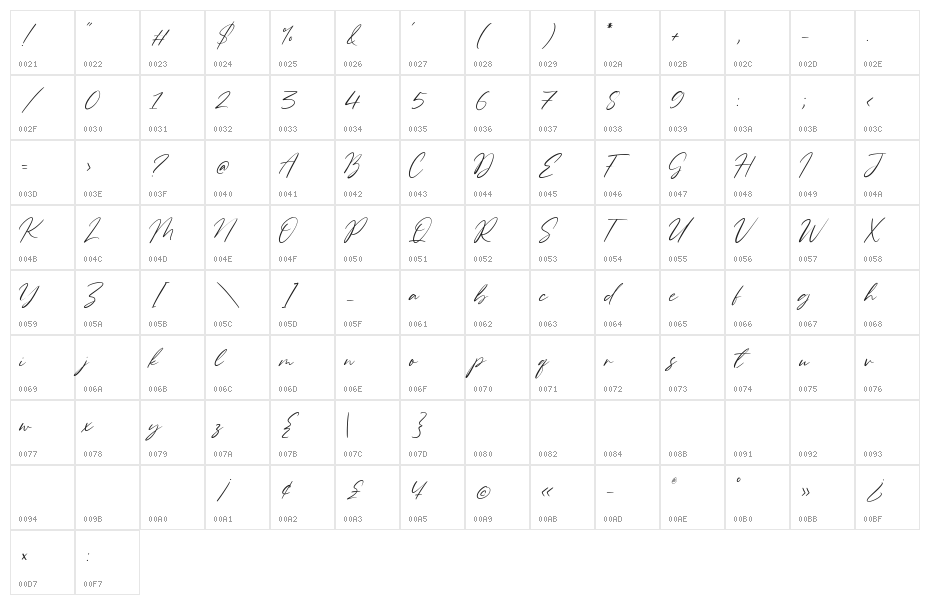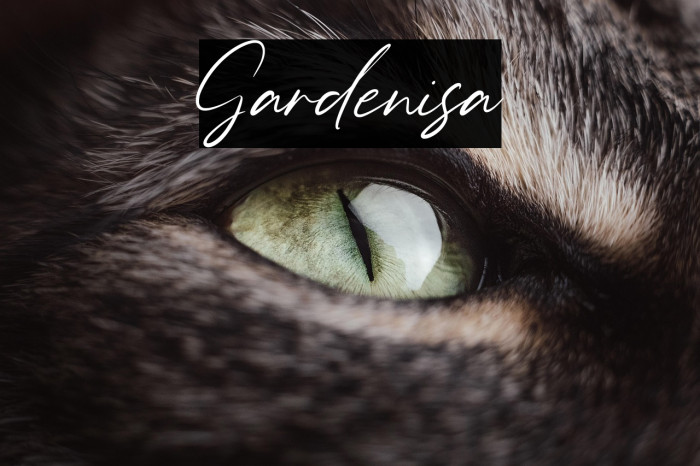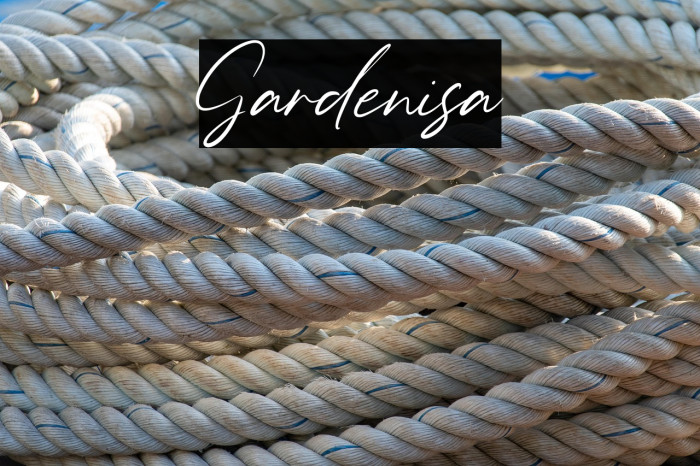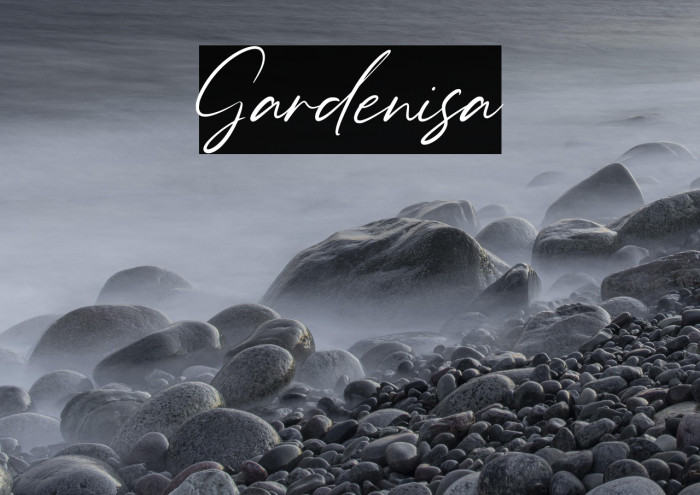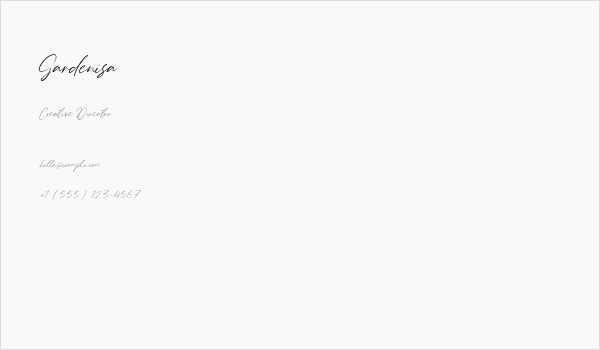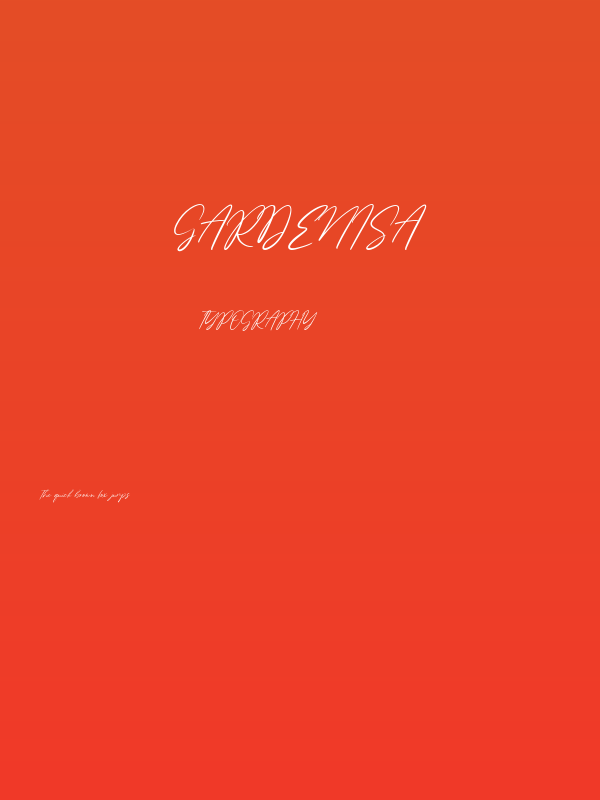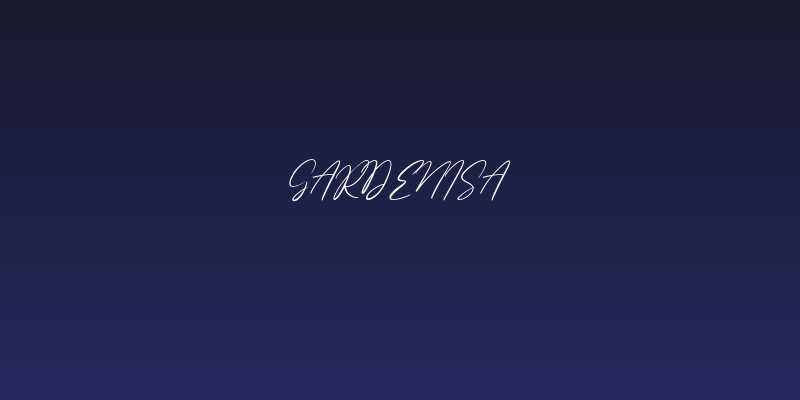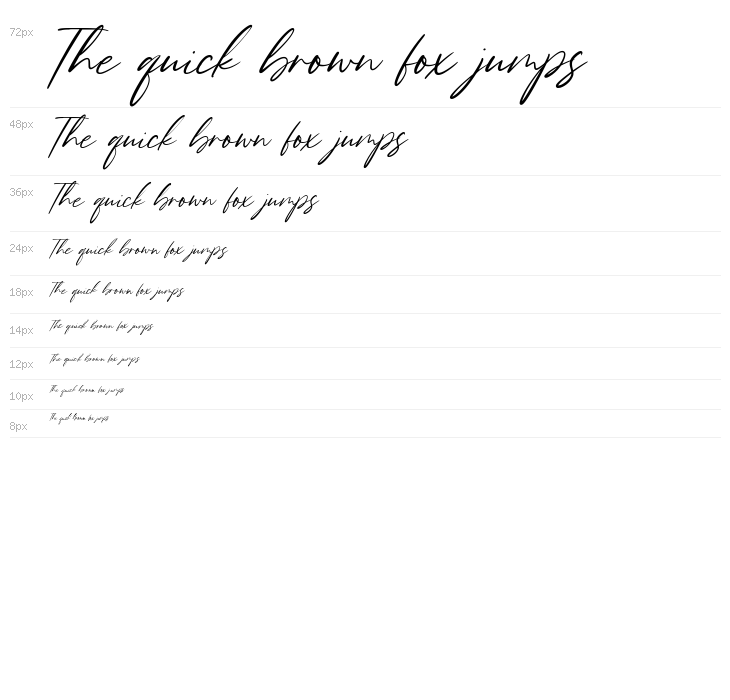
Gardenisa Font
Gardenisa Description
This elegant script font features fluid, cursive strokes that convey a sense of sophistication and grace. The letters are interconnected, creating a seamless flow that mimics natural handwriting. With its thin lines and delicate curves, the font exudes a refined and artistic quality. The uppercase letters are slightly more elaborate, while the lowercase letters maintain a consistent style, enhancing readability. The numerals and special characters are designed to match the overall aesthetic, making it versatile for various applications.
Overall StyleElegant
Use CaseLogos, Invitations, Artistic projects
Proposed ProjectsIdeal for wedding invitations, elegant branding, personal stationery, and artistic projects.